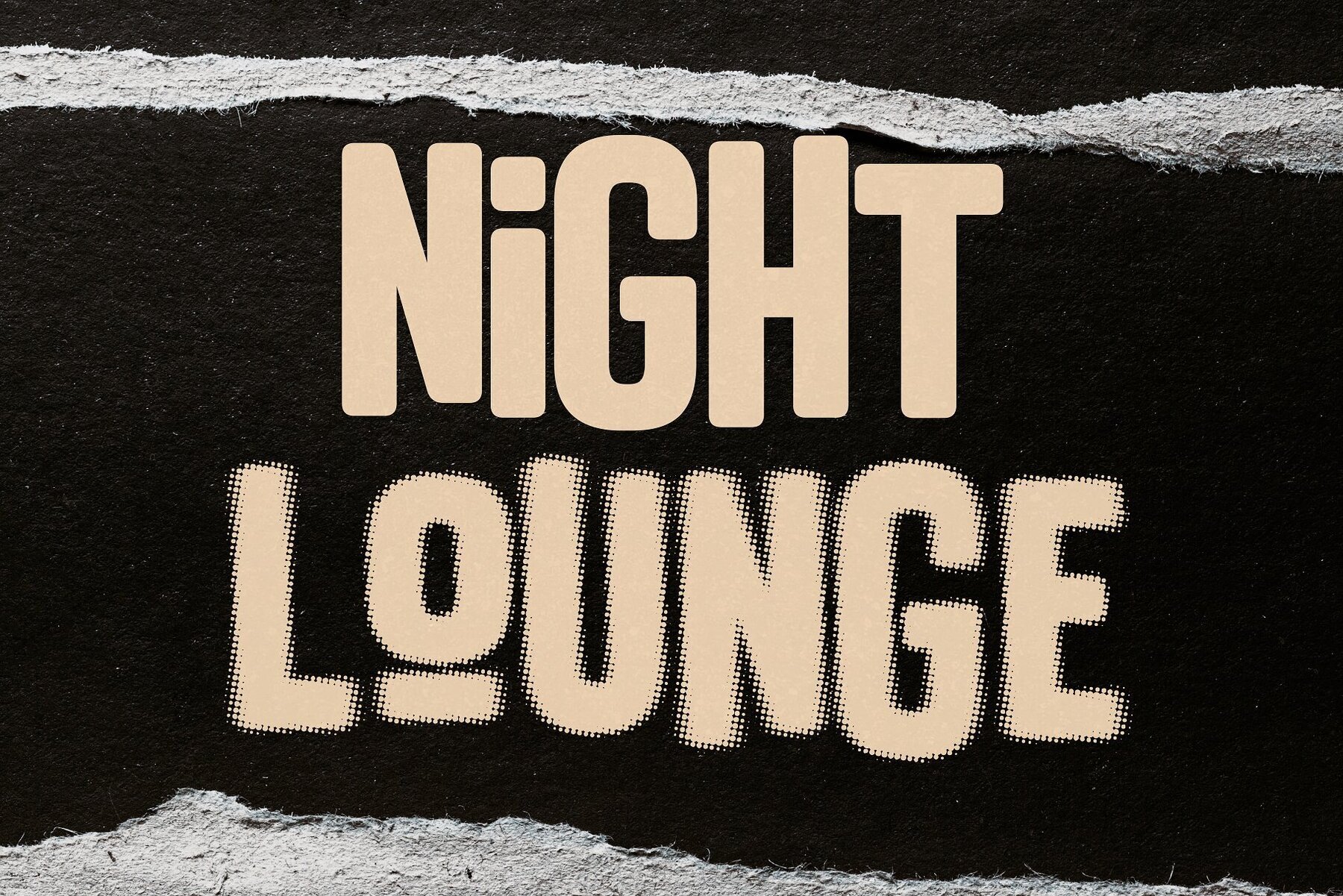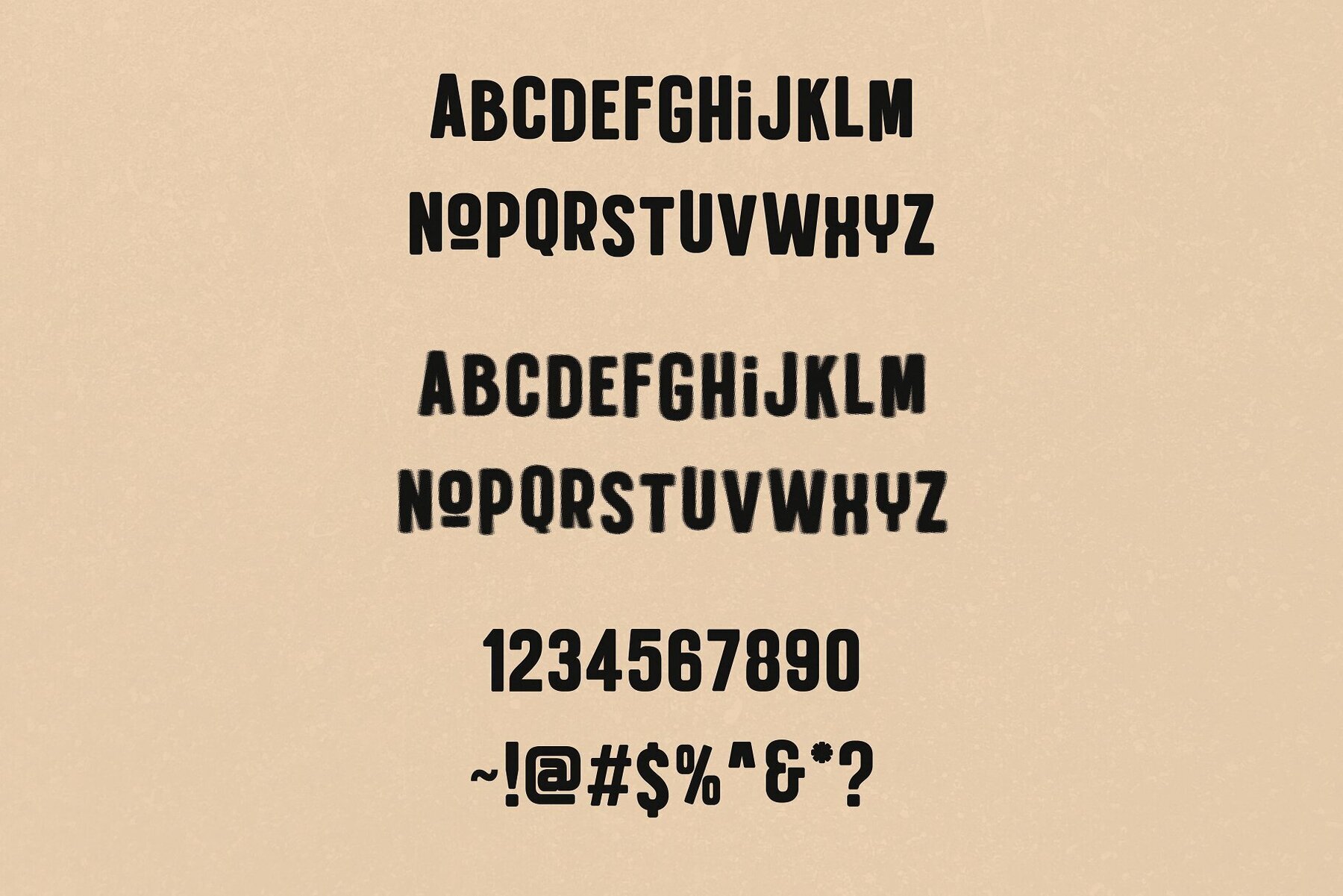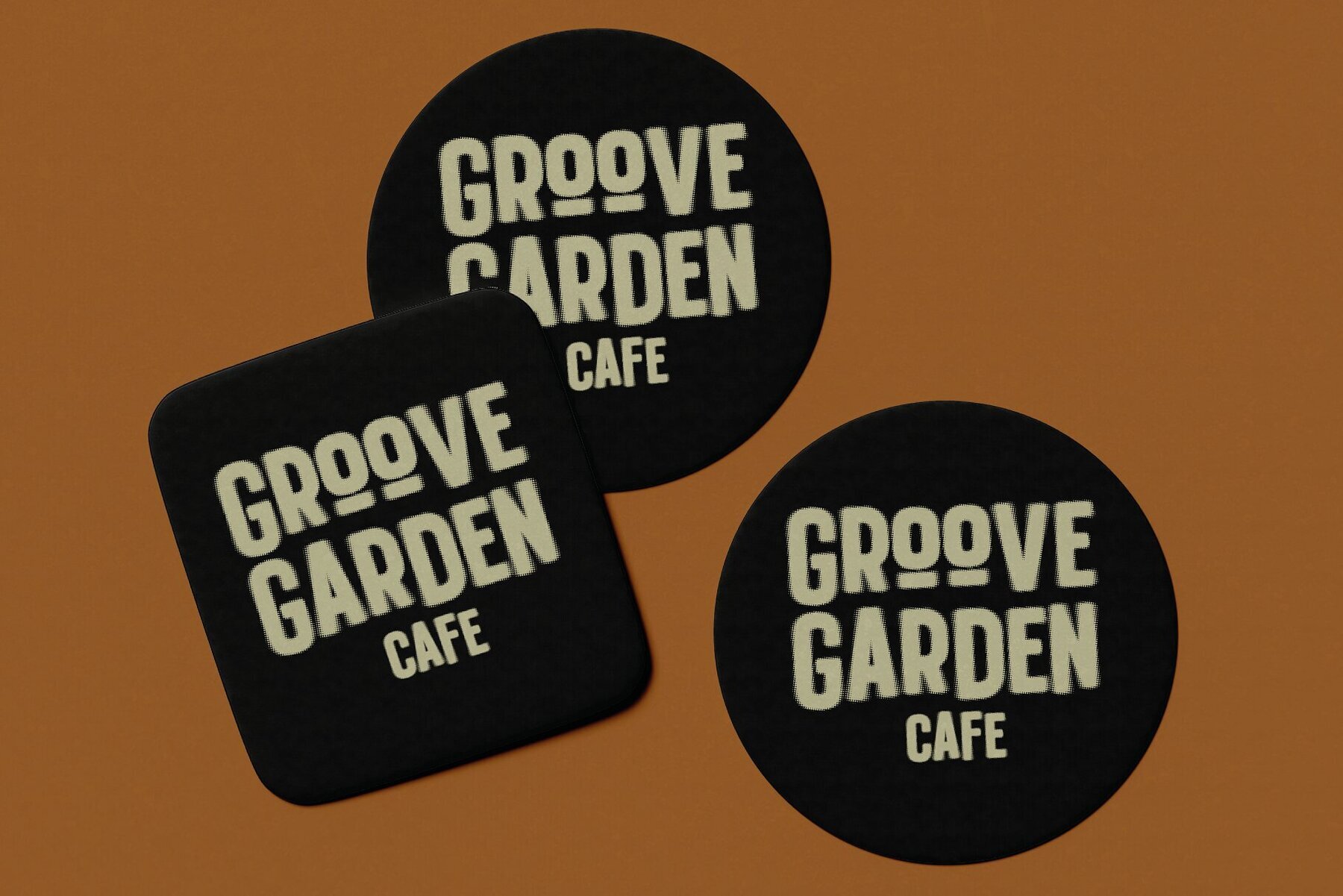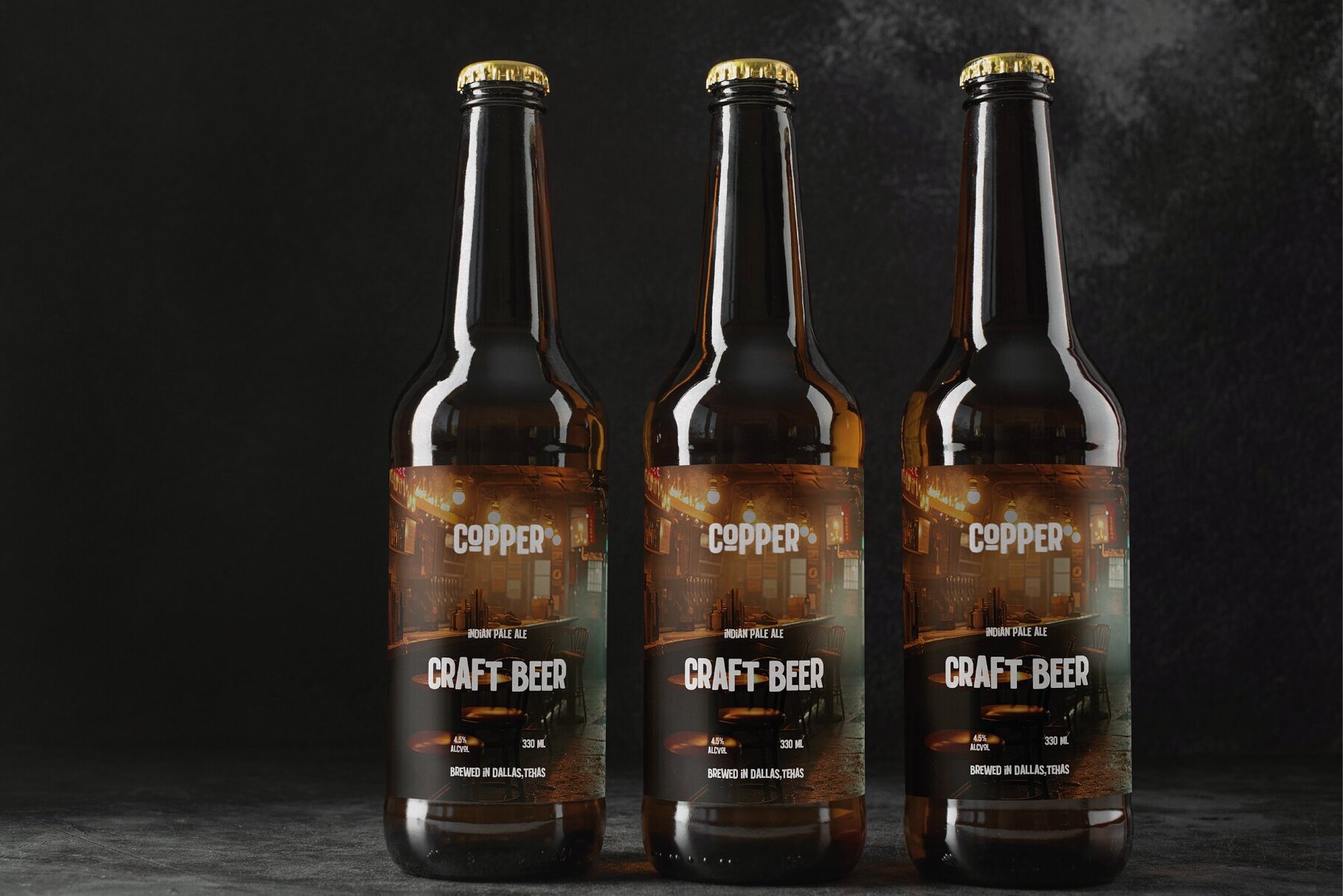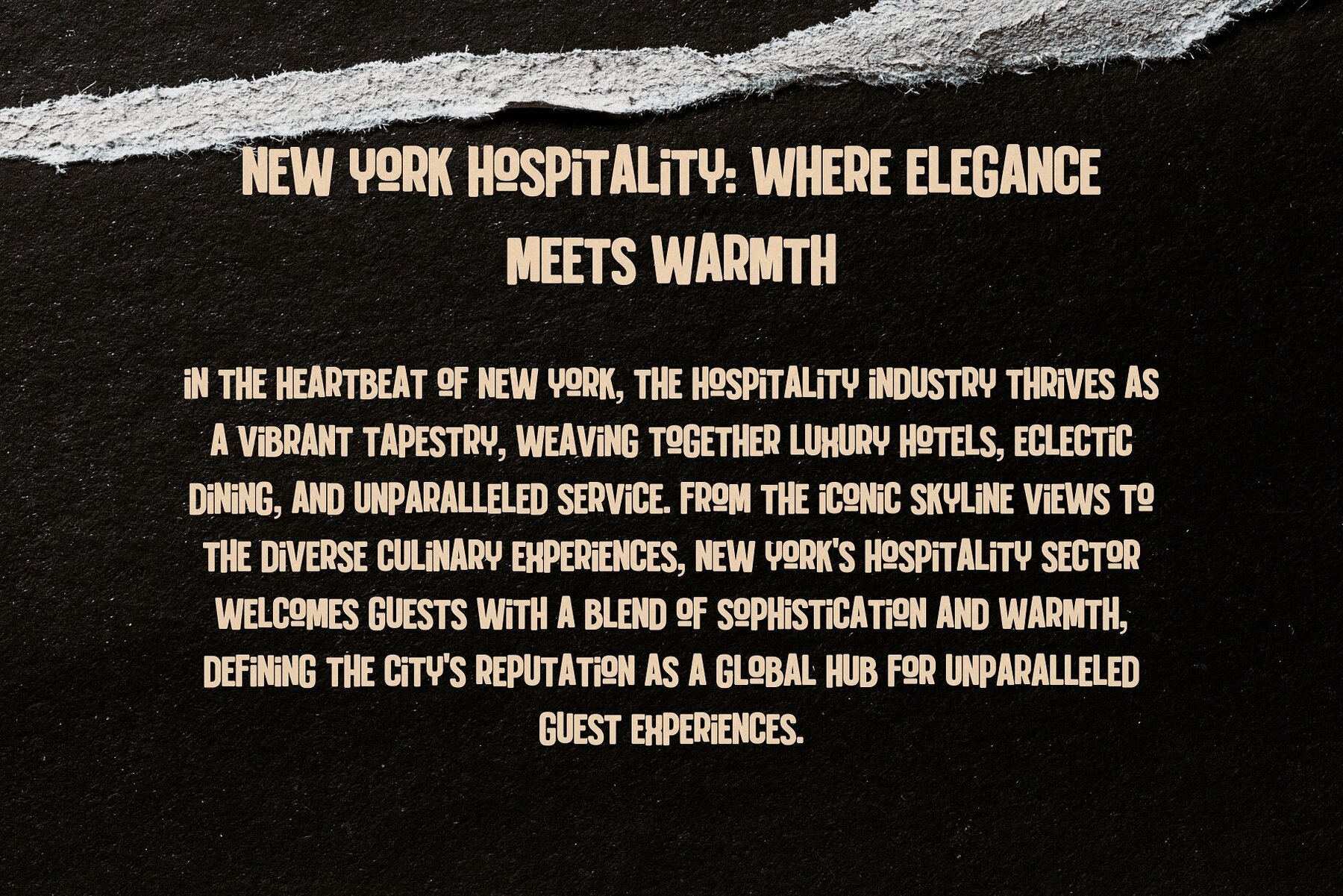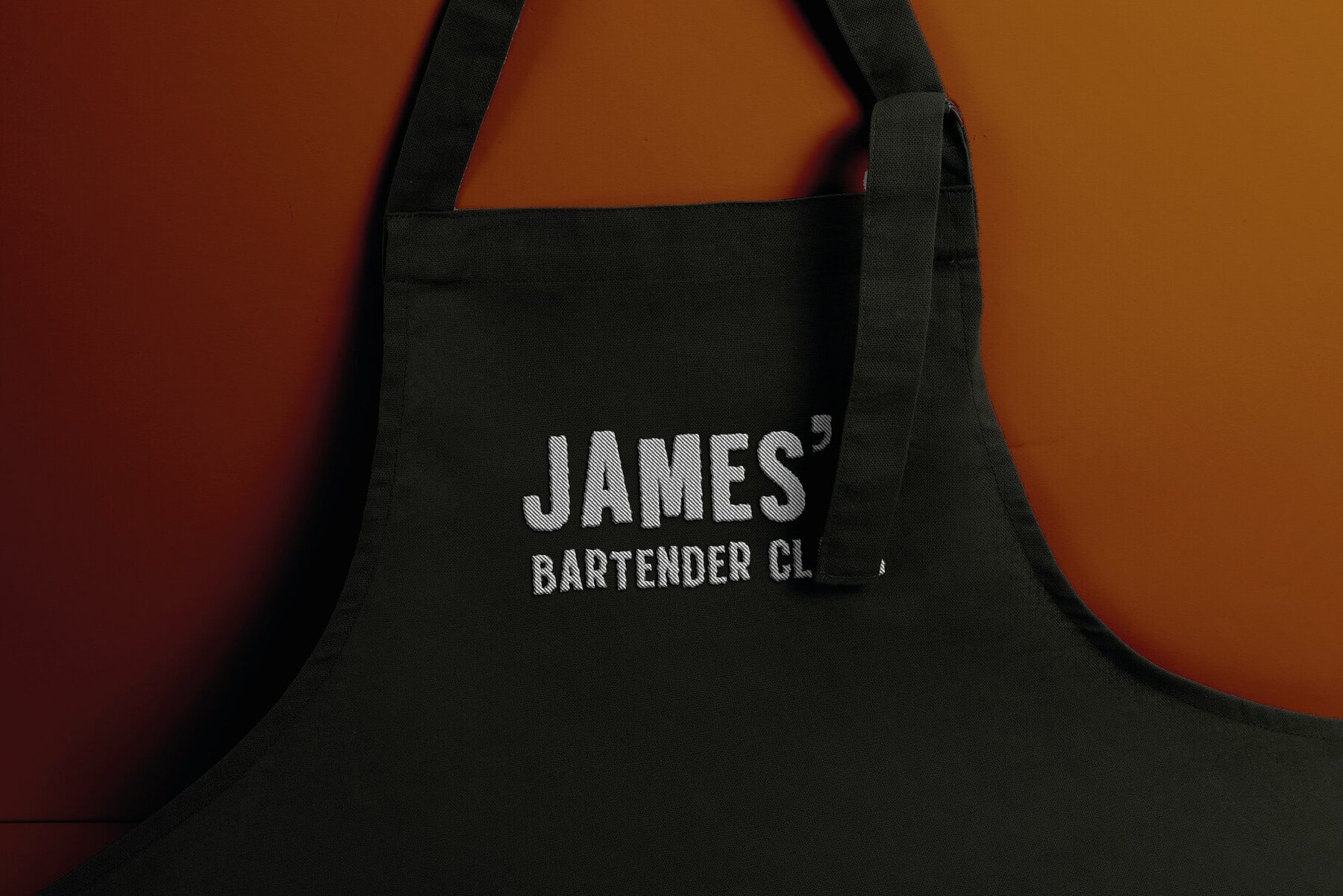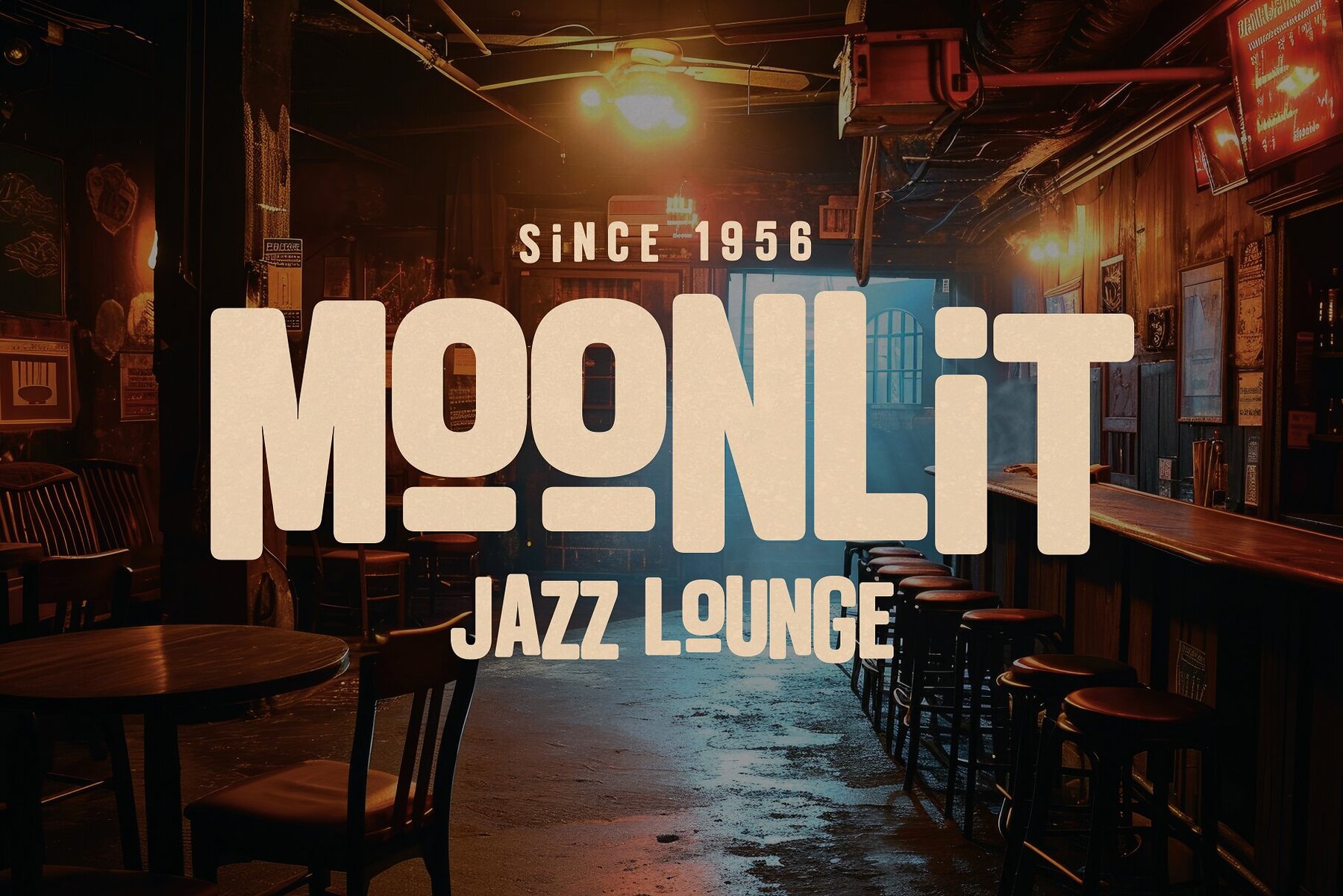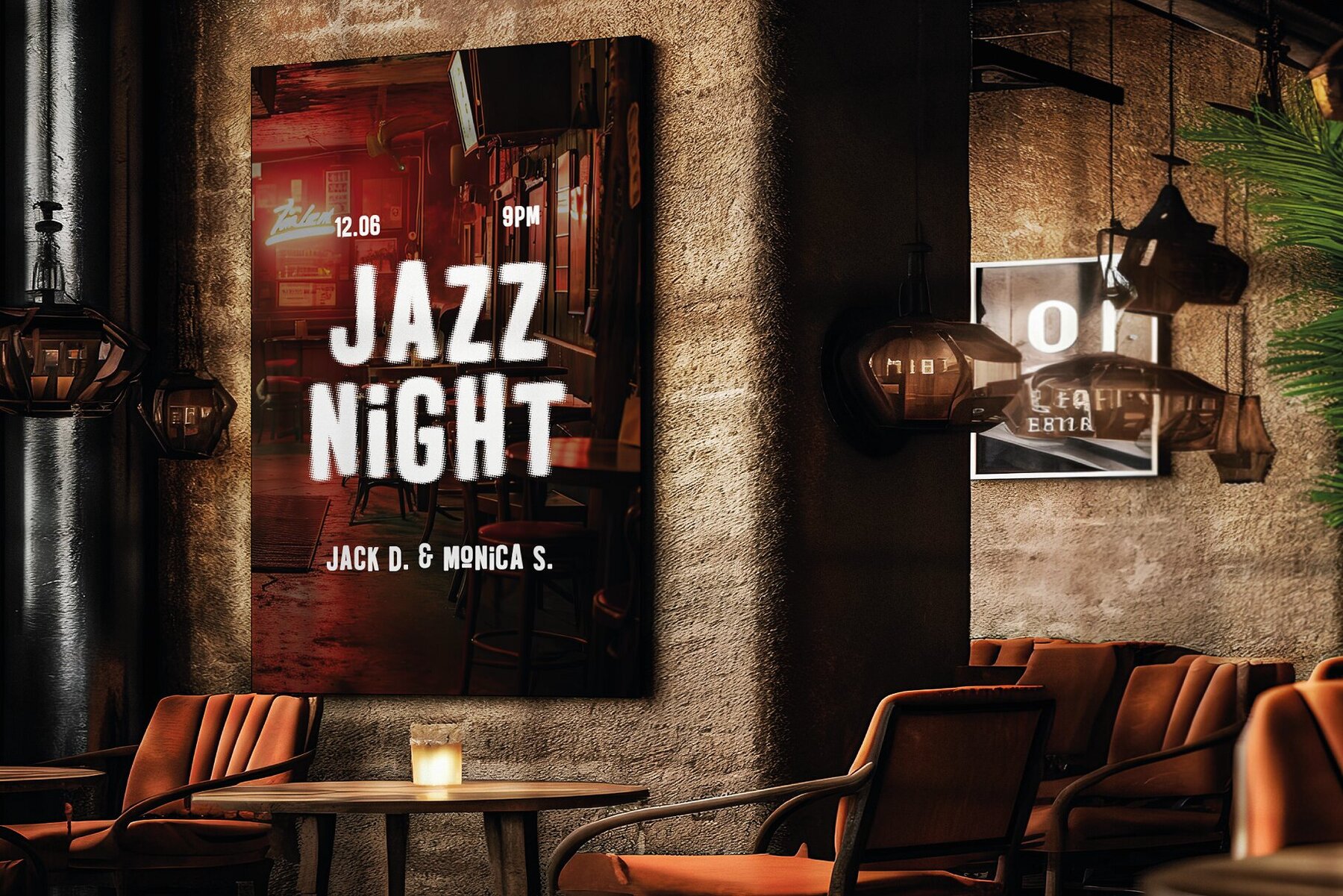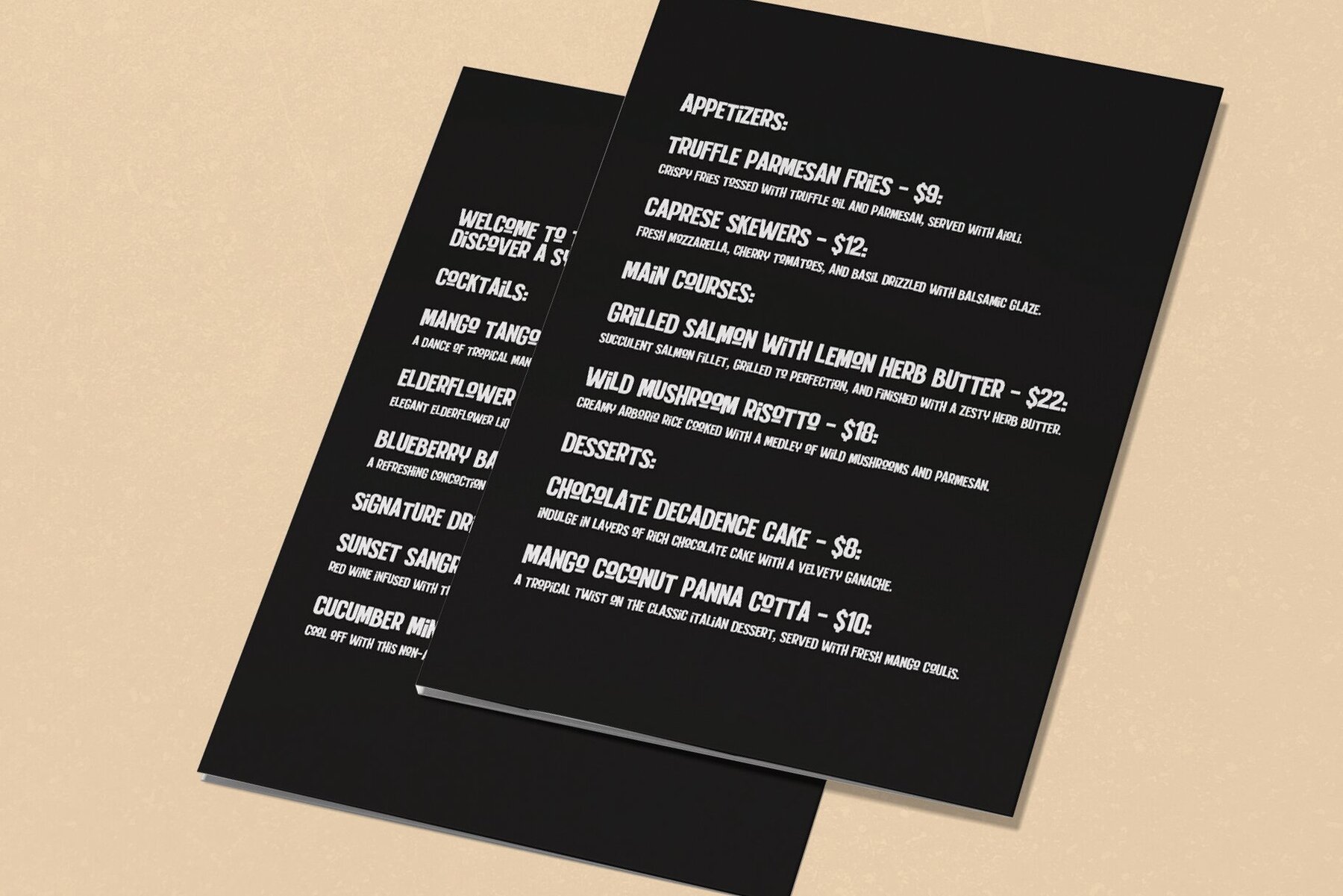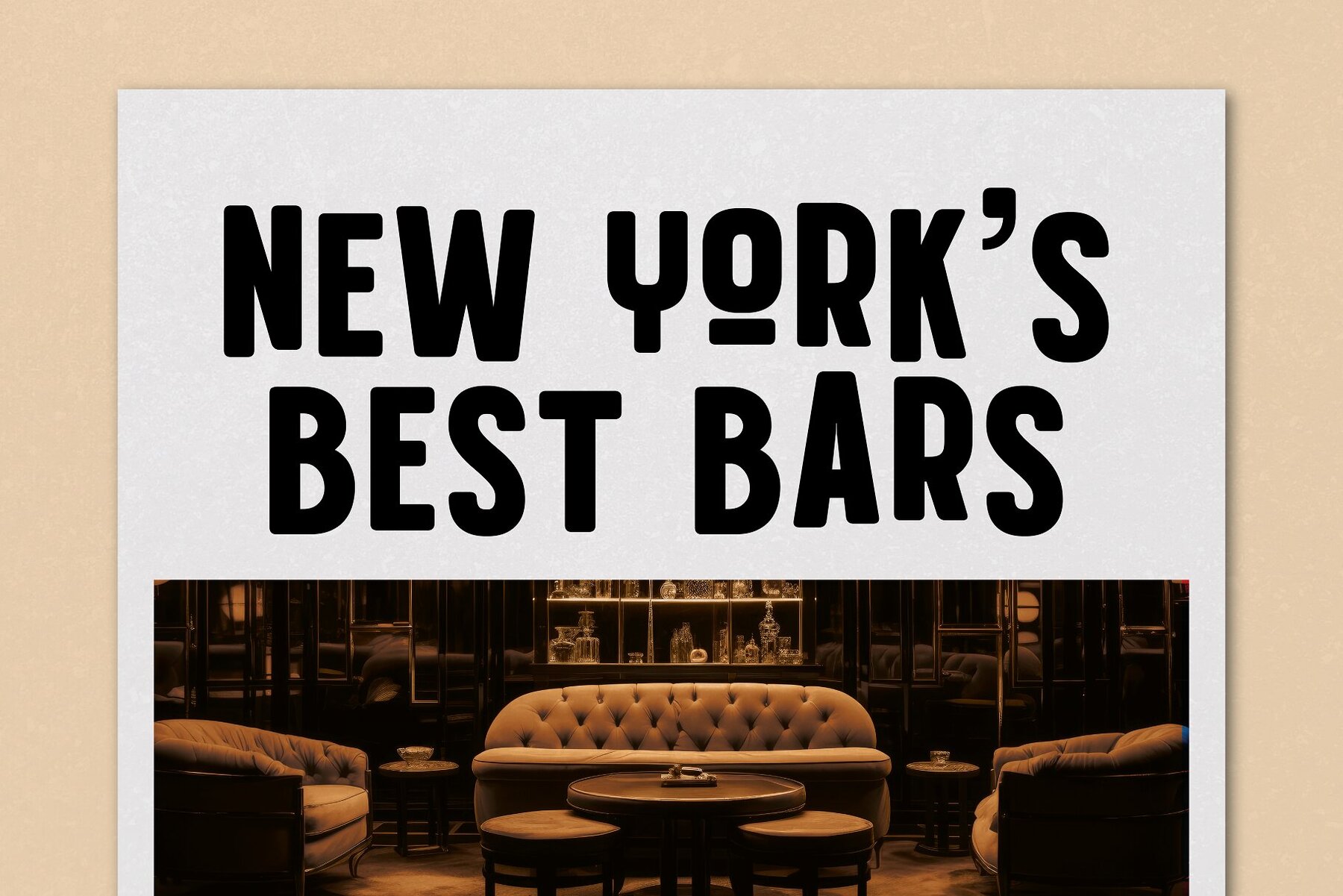
Night Lounge Font
Introducing Night Lounge, a strikingly beautiful sans-serif typeface that boasts an elegant, tall stature, perfect for making a statement in any design. Its sophisticated and sleek lines are designed to catch the eye, making it an ideal choice for a wide range of applications. Whether it’s the vibrant world of flyers, the bold face of logos, the inviting nature of restaurant menus, or the essential visibility of signage, Night Lounge adds a touch of class and distinction. The typeface’s versatility extends to branding as well, where its unique style can help create a memorable and impactful visual identity. Night Lounge is not just about aesthetics; it’s about functionality too. Its tall and clean design ensures excellent readability, which is crucial for effective communication in various mediums. The typeface adapts beautifully across different contexts, from the minimalistic elegance required in professional branding to the more flamboyant needs of creative advertising. The attention to detail in its design ensures that whether it’s printed or on a digital screen, Night Lounge maintains its charismatic charm, making it a must-have in the repertoire of designers looking to infuse their projects with a modern, yet timeless, flair.